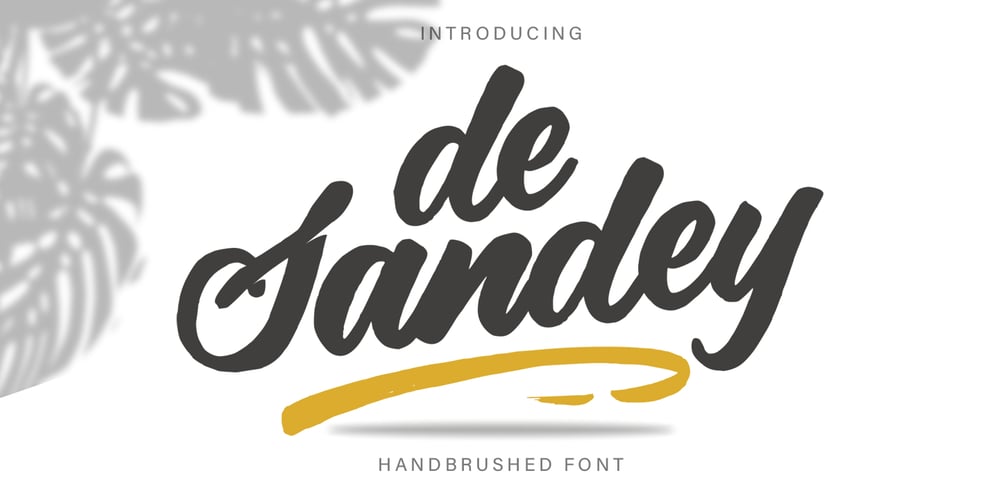
De Sandey
De Sandey font
De Sandey Font Family was designed by Rochadi Sudarma and published by Rochart. De Sandey contains 2 styles and family package options. De Sandey is a hand brushed font, with natural authentic brush, and also provided some alternate, ligatures and Swashes Extra. Brand new stylish textured fonts and Make it easy for made logotype Handlettering Style. It will be great for Logotypes, Posters, Digital Lettering Arts, Clean Design, Branding Design, Sign, Merchandise and Social Media Posts.This font contain of Uppercase, Lowercase, Number, Symbol, Punctuation, also support multilingual and already PUA encoded.